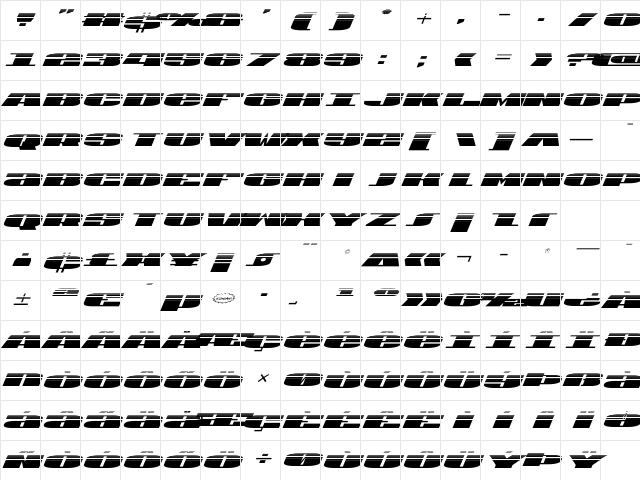
U.S.A. Halftone Italic Italic
Design Context for U.S.A. Halftone Italic
U.S.A. Halftone Italic is a composed and adaptable typeface that performs quietly and consistently across a wide range of design contexts. The slanted form adds forward momentum and visual energy.
Pro Tip: Use U.S.A. Halftone Italic for emphasis, pull quotes, and subheadings where its slanted energy can add rhythm to the layout.